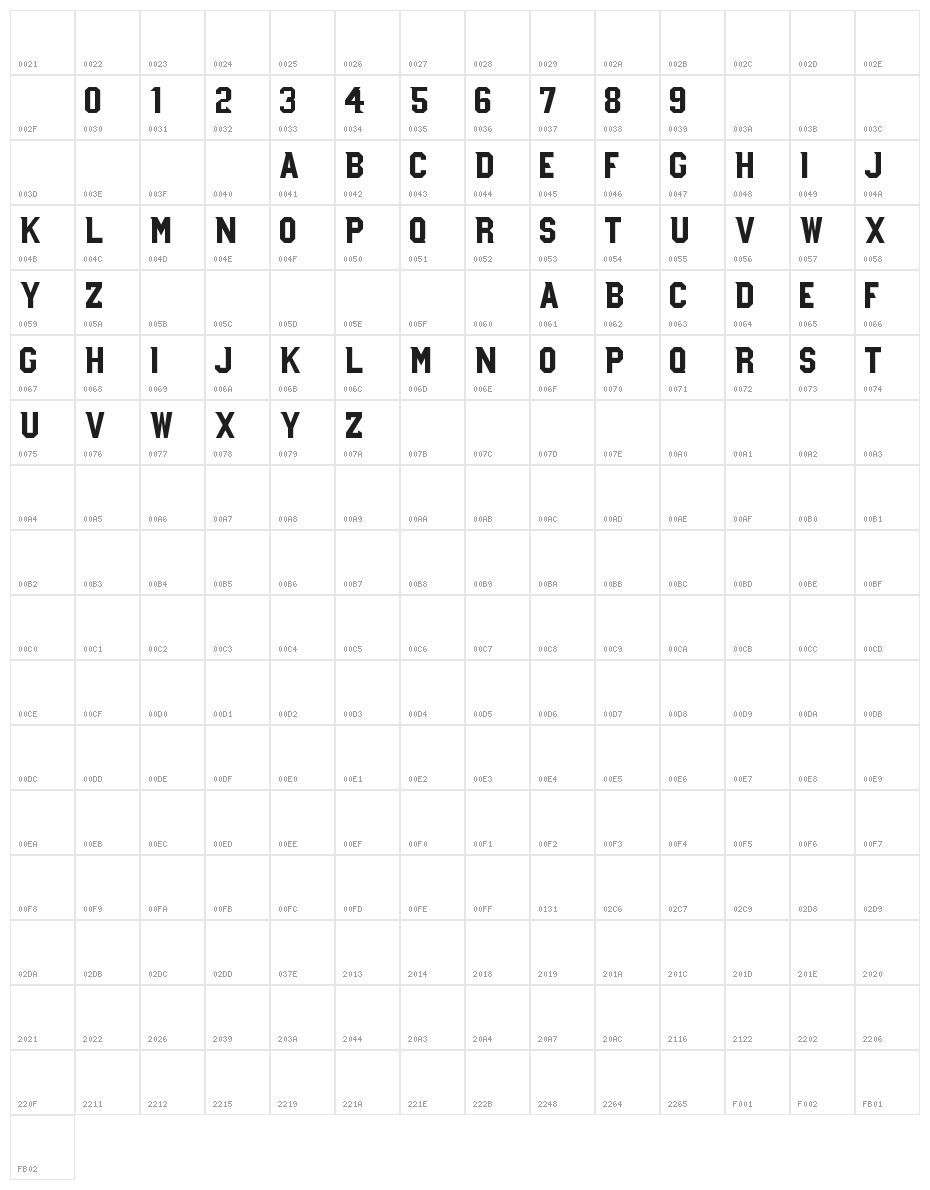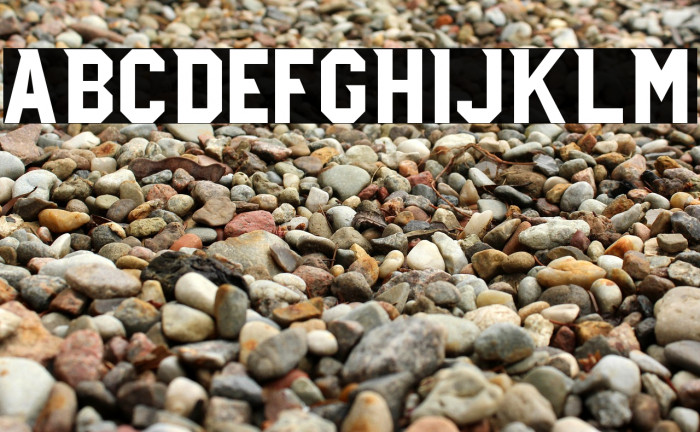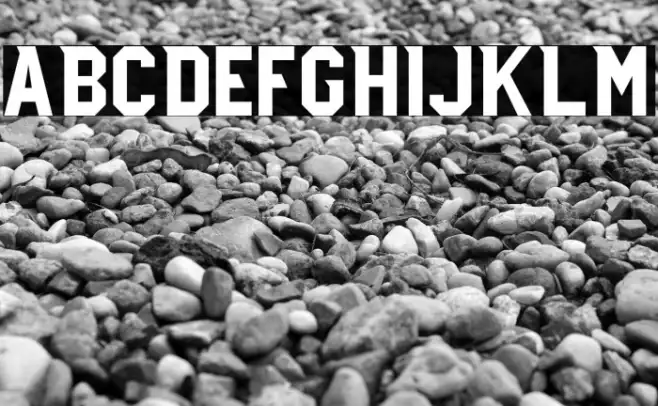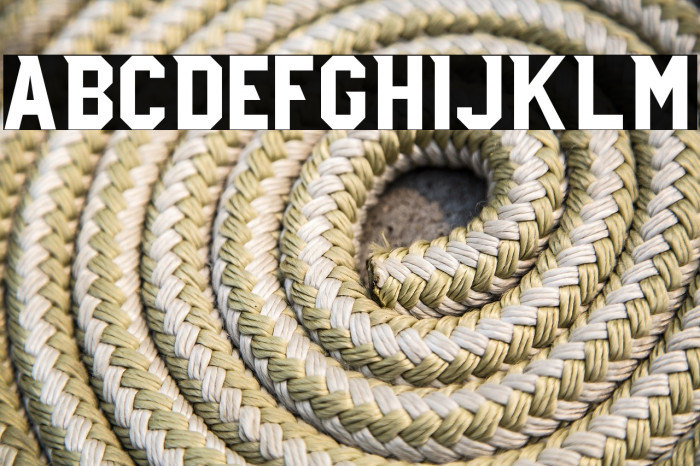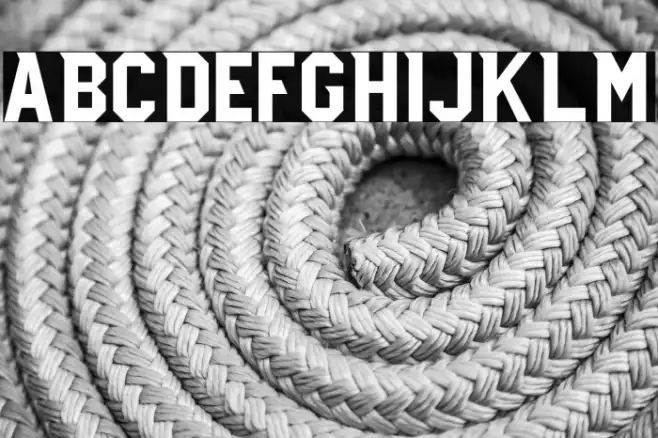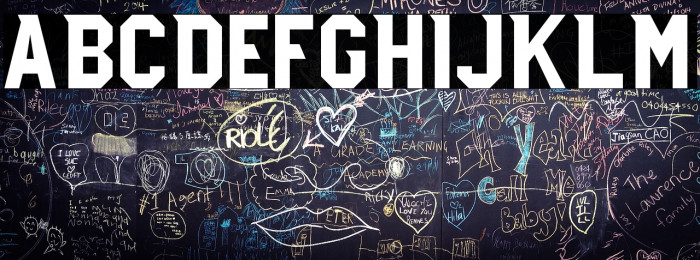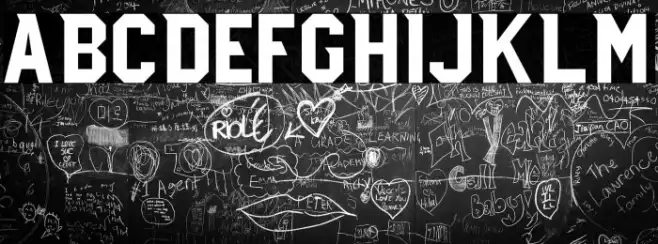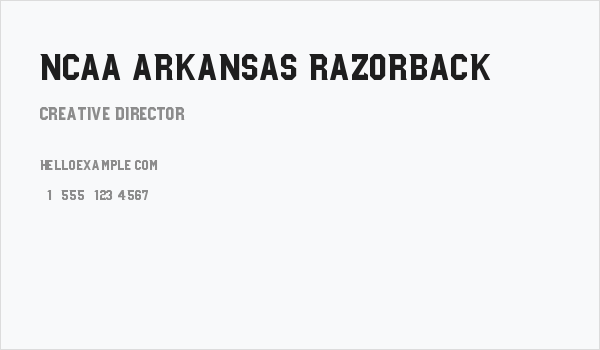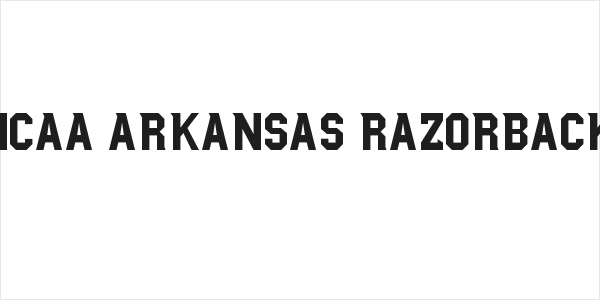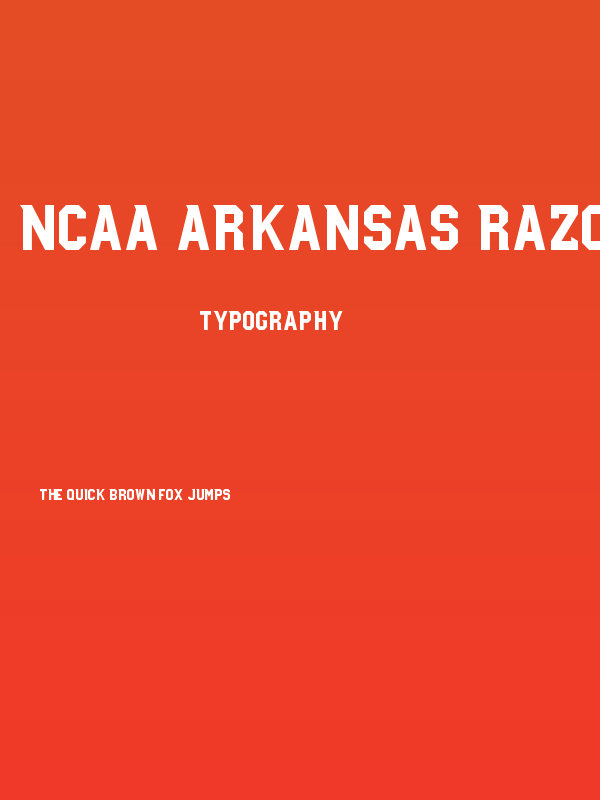
NCAA Arkansas Razorback Font
NCAA Arkansas Razorback Description
This font features bold, geometric letterforms with a strong, athletic aesthetic. The characters are designed with sharp angles and a uniform stroke width, giving them a robust and impactful appearance. The uppercase letters are particularly striking, with a blocky, collegiate style that conveys strength and confidence. The numerals are equally bold, maintaining the same angular design, which enhances the font's cohesive look. This typeface is ideal for projects that require a bold and assertive presence, such as sports branding or team merchandise.